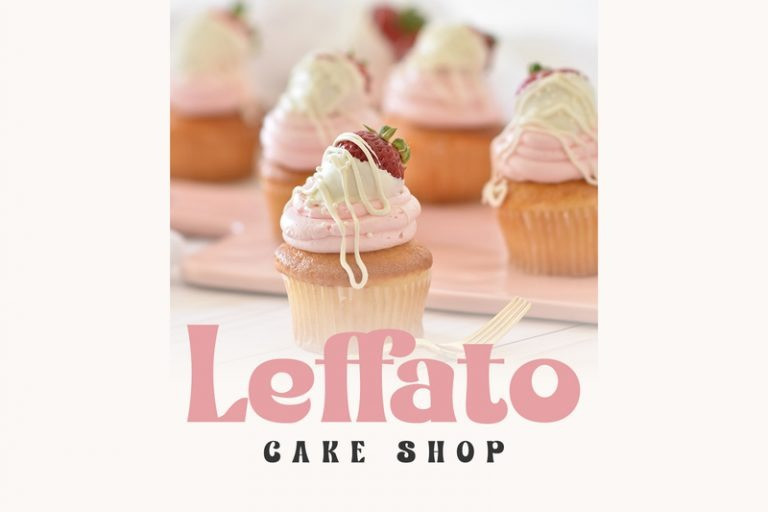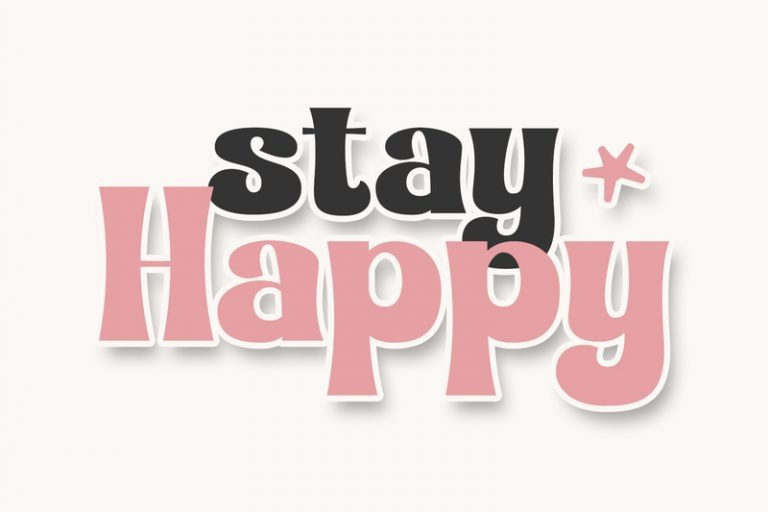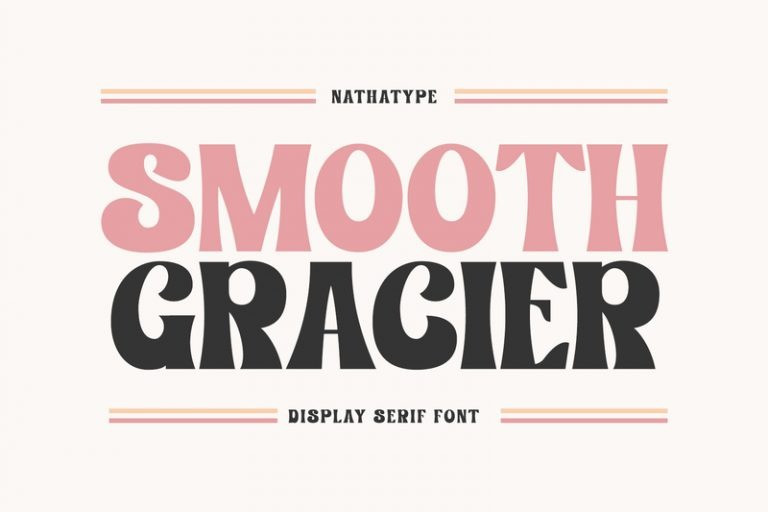
Smooth Gracier Font
Smooth Gracier Font is a stylish display serif font to express modern, friendly, fun nuances on your designs. The unique geometry details and the contrast sketch lines help to make the font visually interesting. It is suitable to apply for bigger sized-texts due to its dramatic, bold styles. Enjoy the lovely features available in this font.